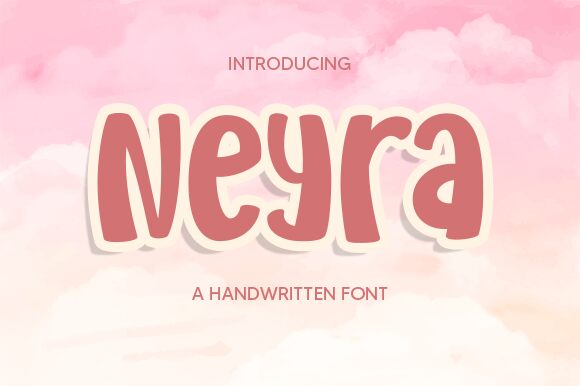
Neyra
Meet Neyra, the playful and bold font designed by Nirmala Creative. Its condensed width and bold weight make it perfect for headlines, titles, logos, and posters. The cartoon style of this display font lends itself to children's books or any project that requires a touch of whimsy. With its unique personality and eye-catching design, Neyra is also suitable for branding projects that require a memorable visual identity. Use Neyra to add some fun and character to your next design project!